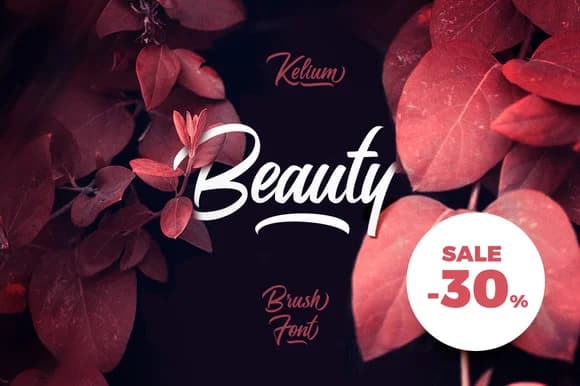
Kelium Font by Kavoon is a flowing handwritten script that brings together refined contemporary style and genuine personal warmth. With its organic, sweeping letterforms and smooth strokes, this typeface strikes the right balance between distinctive personality and solid legibility, remaining clear and readable whether you're using it for striking display headlines or standard body text applications in editorial design.
The script proves remarkably versatile across creative applications and design contexts. It excels particularly well for wedding invitation suites, custom greeting card collections, artisan product packaging, and vinyl labels for specialty brands seeking authenticity. The fluid strokes work beautifully for social media graphics, event programs, personalized home decor projects, editorial layouts, small business branding, or handwritten correspondence pieces. Crafters and small business owners will particularly appreciate its expressive range and accessibility.
Kelium Font is a script font that shines as a display or heading face. Pair it with a clean sans-serif or serif font for body text β the contrast creates a clear hierarchy while the two styles stay balanced and easy to read.
Kelium Font
by Kavoon